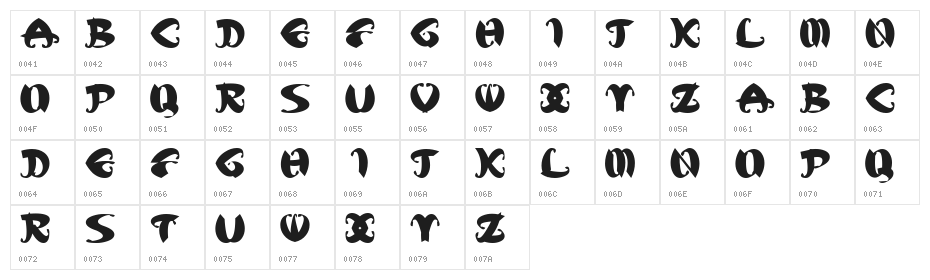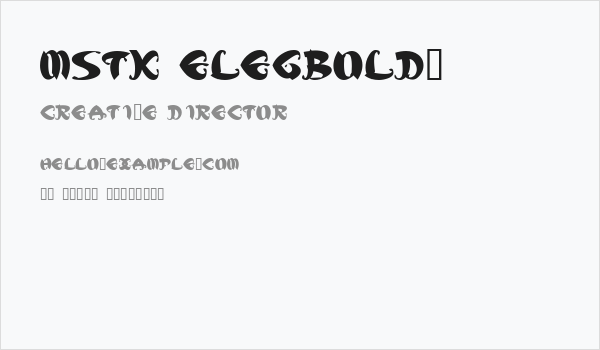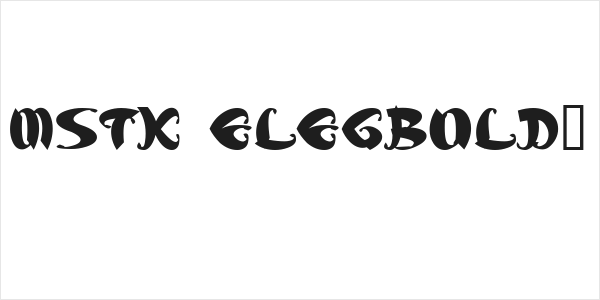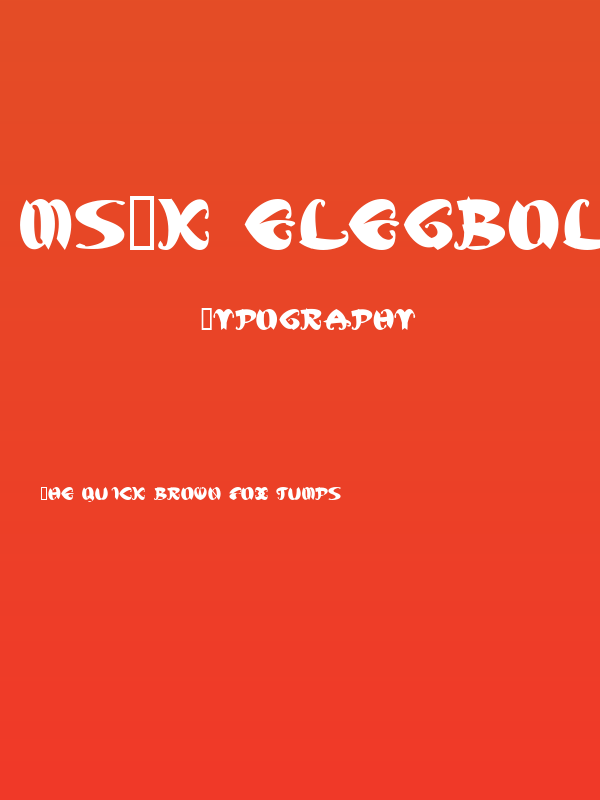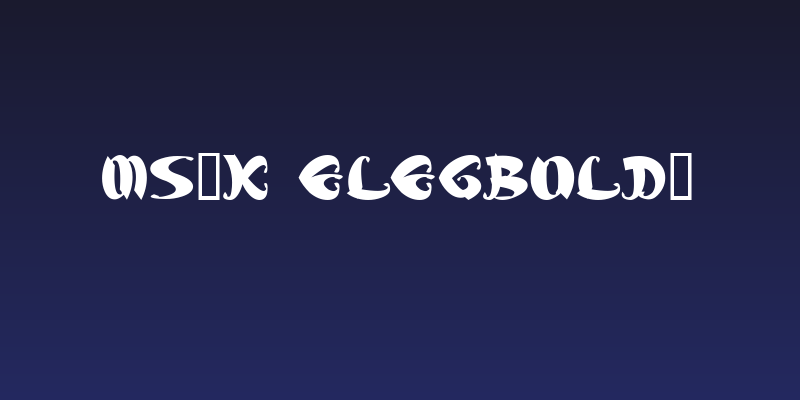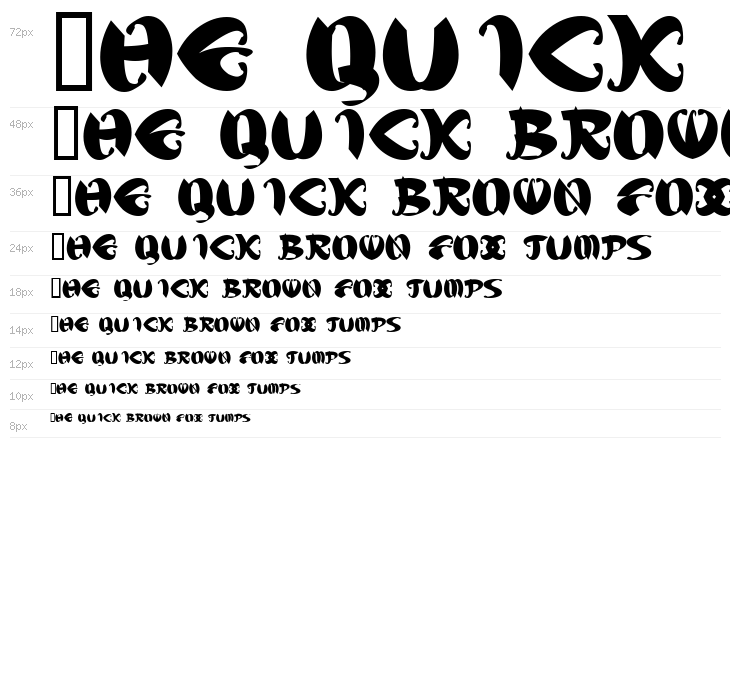
MStK ELEGBold1 Font
MStK ELEGBold1 Description
This font features a bold and dramatic style with intricate, decorative elements reminiscent of traditional calligraphy. The characters are heavily stylized, with thick strokes and ornate flourishes that give it a distinct, artistic appearance. The uppercase letters are particularly elaborate, with exaggerated curves and sharp angles that create a sense of movement and flair. The overall design is both eye-catching and sophisticated, making it suitable for projects that require a touch of elegance and historical charm.
Overall StyleVintage
Proposed ProjectsIdeal for use in branding, posters, invitations, and any design that requires a historical or artistic touch.